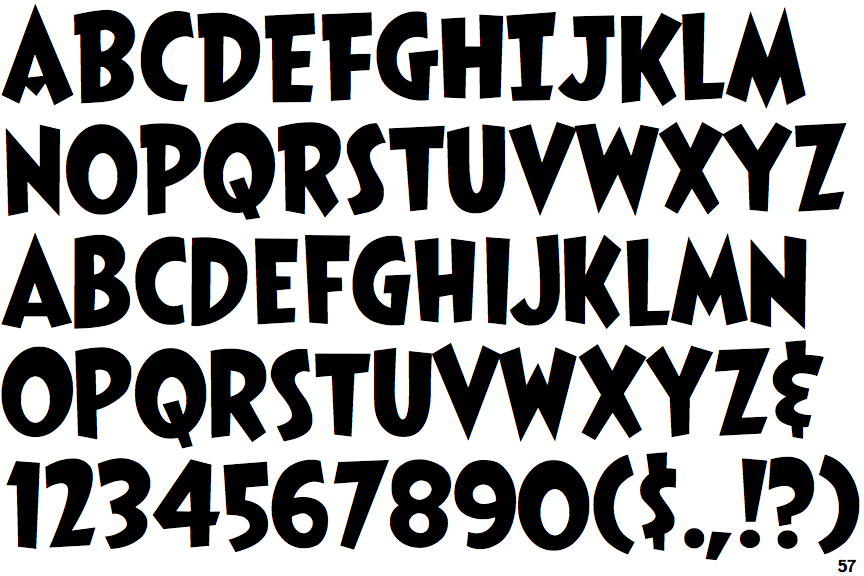
That's All Folks Bold Font
It's good, clean family fun for all your favorite comic cuts and looney'toons!
Run amuck and head on down to toon town with us to enjoy some madcap laffs with our latest frolicking font, 'that's all folks'. Folks à € by manfred klein. This font has designed by jayvee d.
Thats all folks bold font: Download that’s all folks inline bold font. Run amuck and head on down to toon town with us to enjoy some madcap laffs with our latest frolicking font, 'that's all folks'.
Designed by john roshell, that's all folks is a comic and hand display font family. Available for web use (pay once license) purchase the number of pageviews you need to cover your monthly traffic. For those of you people who are looking for a “that’s all folks!” kind of font, i got something helpful for all font creators who want to make this sort of font!